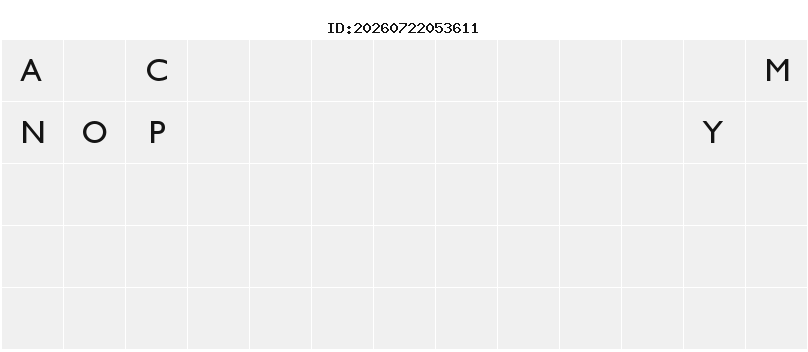
About Humanst521 BT.ttf
Humanst521 BT.ttf is a modern, elegant sans-serif font designed for ultimate readability and visual harmony. Perfect for branding, headlines, web design, and print materials.